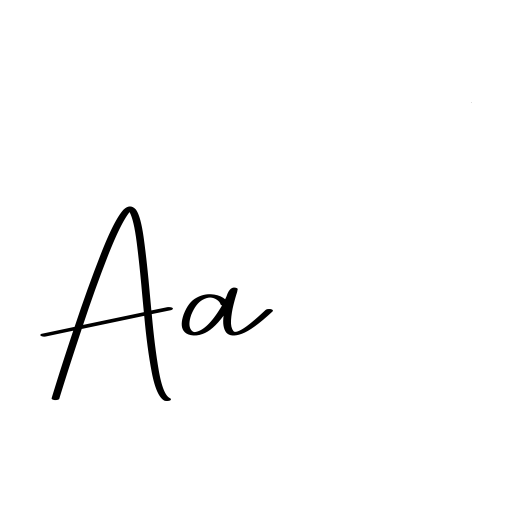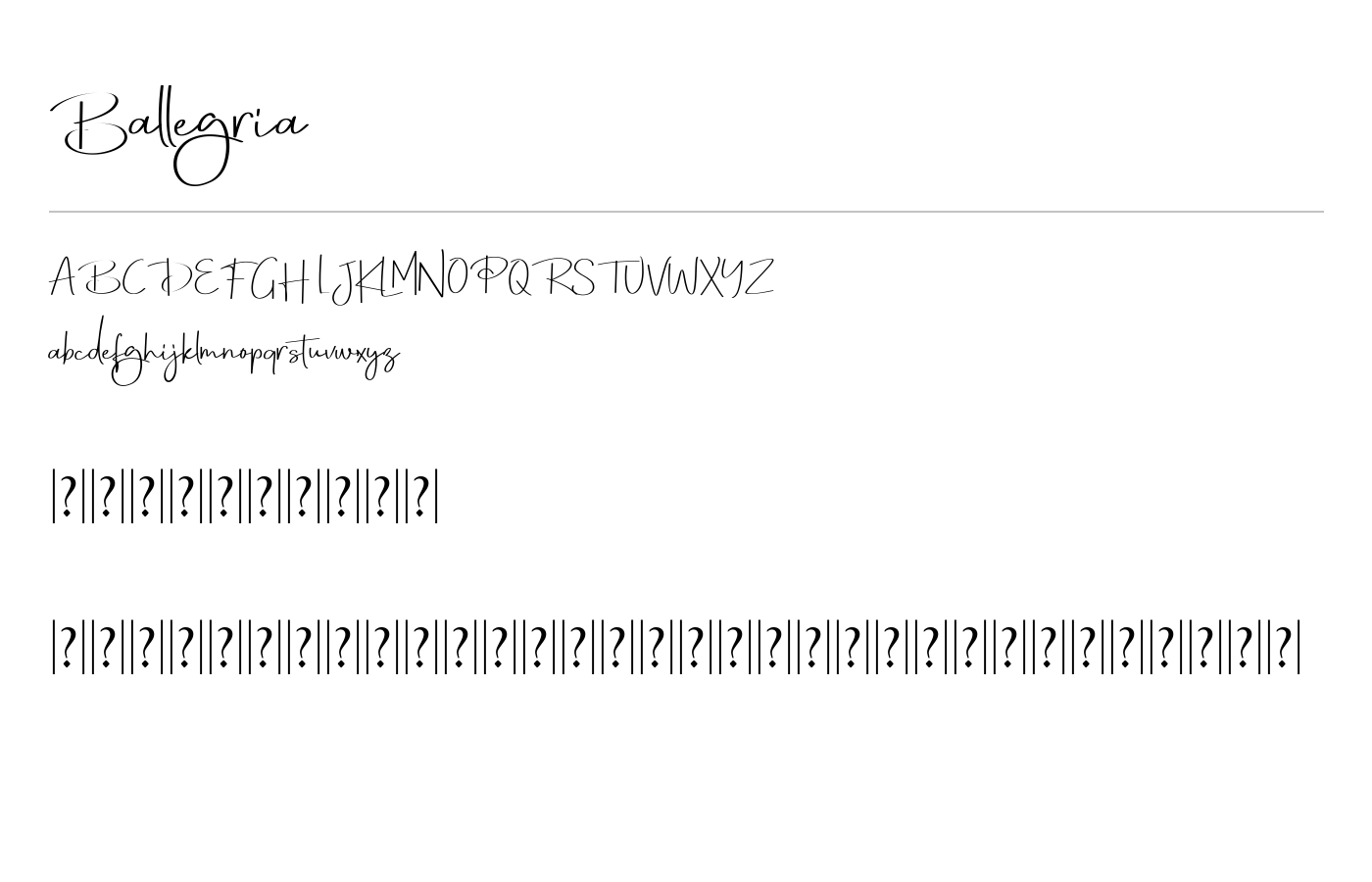
Ballegria is a delicate, handwritten script font with a light weight and graceful, flowing strokes that evoke a sense of elegance and charm. Its tall, narrow letterforms, with distinct loops and swashes, create a stylish yet approachable feel perfect for feminine branding, invitations, and creative projects needing a personal touch. This font shines in designs where a soft, sophisticated, and artistic expression is desired.
Ballegria Font
About Ballegria Font